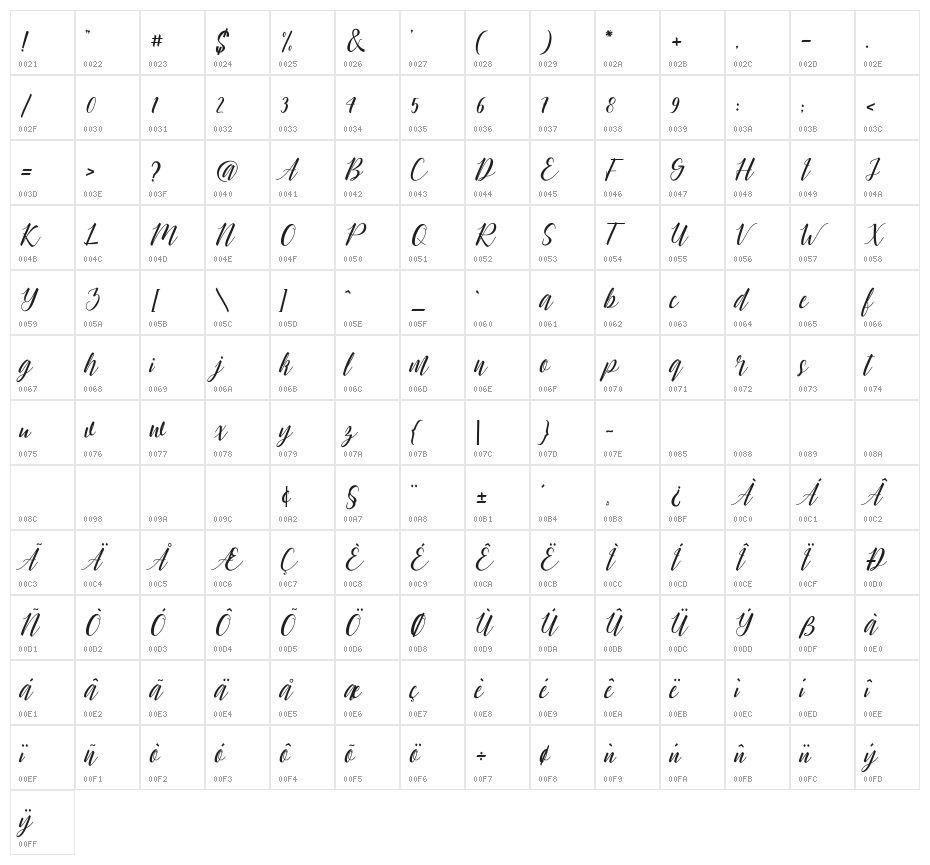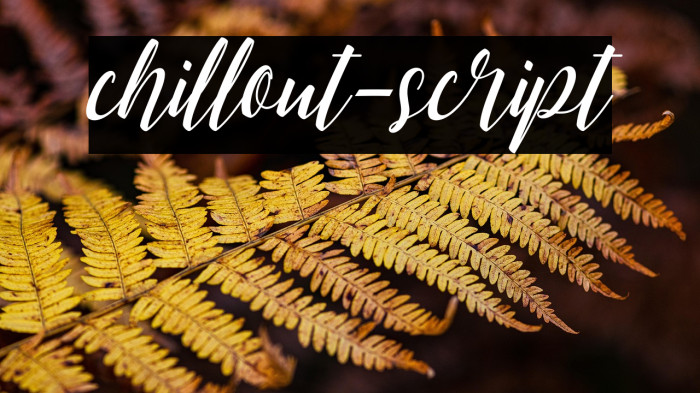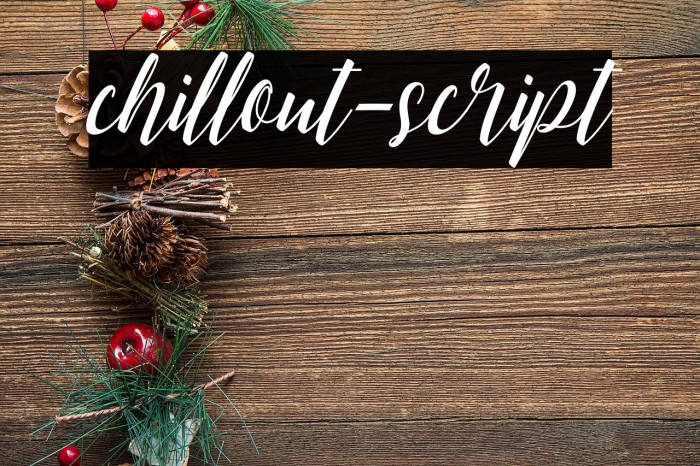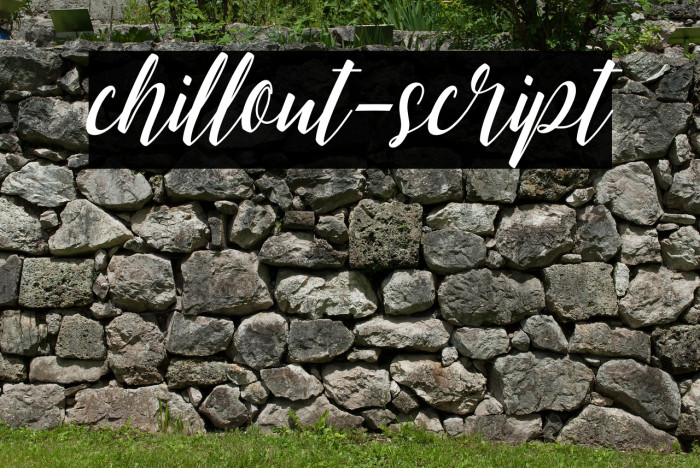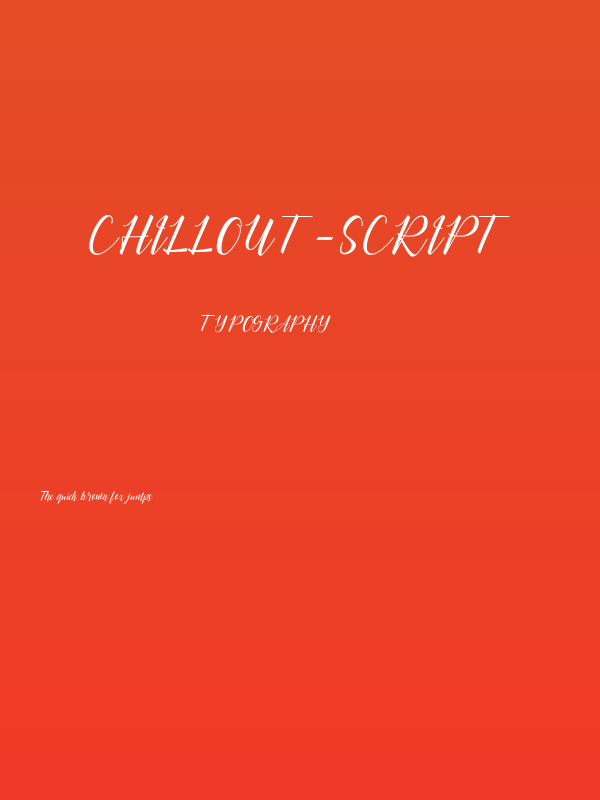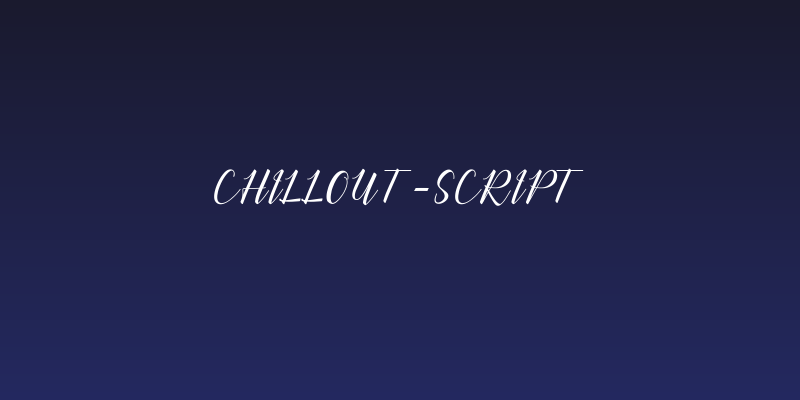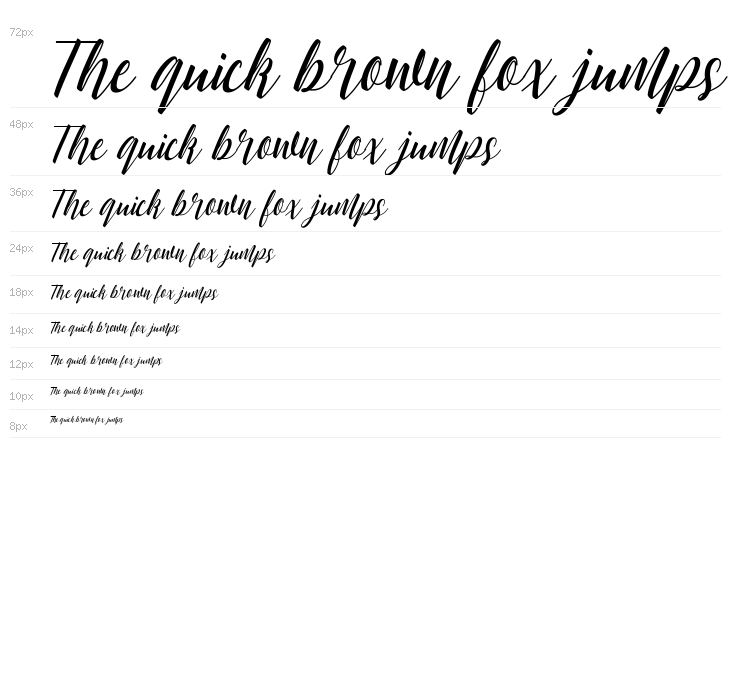
chillout-script Font
chillout-script Description
This font exudes a relaxed and flowing script style, characterized by its elegant and cursive letterforms. The uppercase letters are bold and sweeping, with a graceful flair that suggests movement and fluidity. The lowercase letters maintain a consistent flow, with smooth connections between characters, enhancing the script's natural handwriting appearance. Numbers and special characters are designed with the same attention to detail, ensuring a cohesive look throughout. The overall impression is one of sophistication and ease, making it suitable for projects that require a personal touch.
| Overall Style | Elegant, Relaxed, Flowing |
| Use Case | Logos, Invitations, Greeting Cards |
| Proposed Projects | Ideal for wedding invitations, greeting cards, branding, and logo design where a personal and elegant touch is desired. |